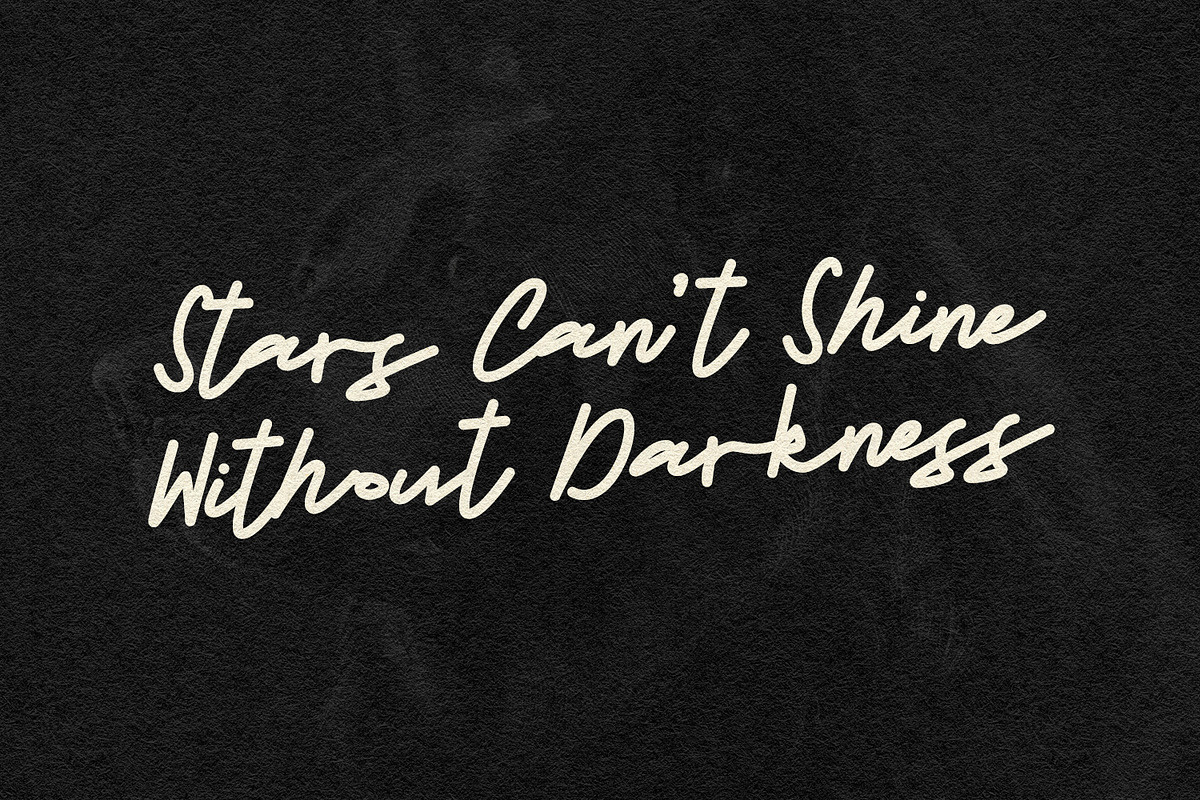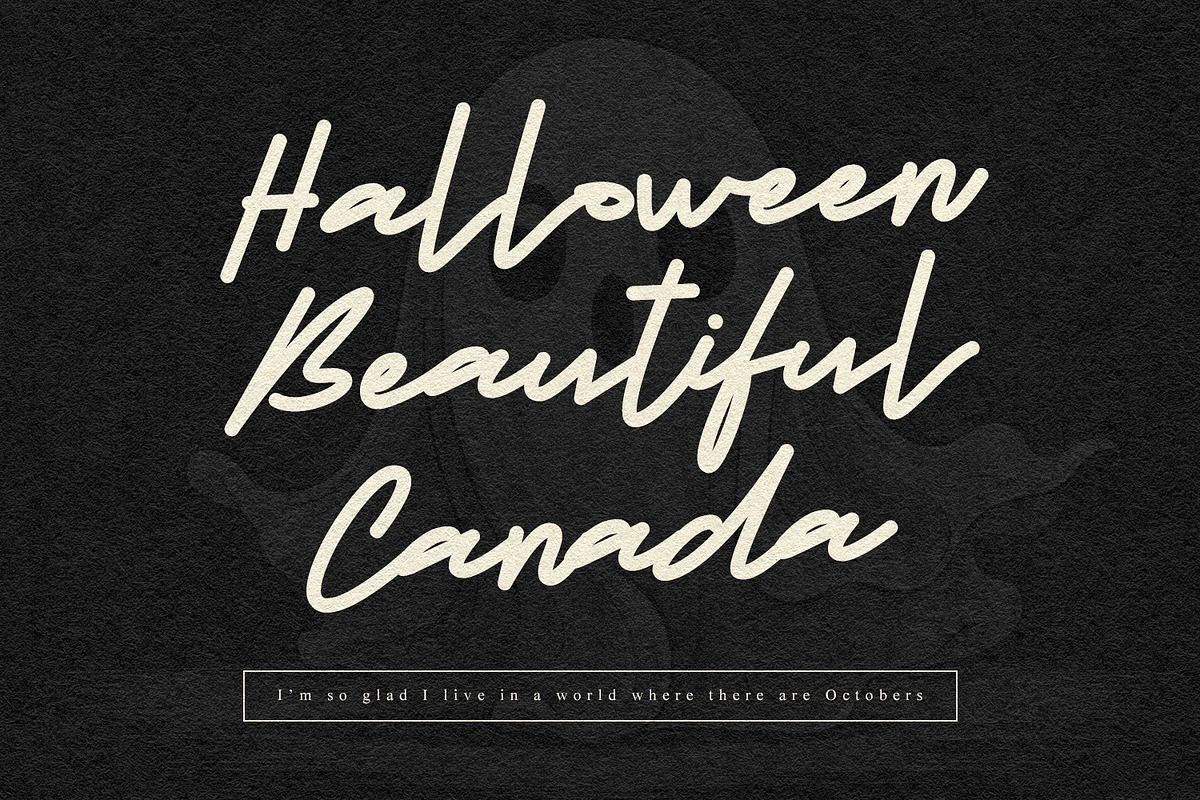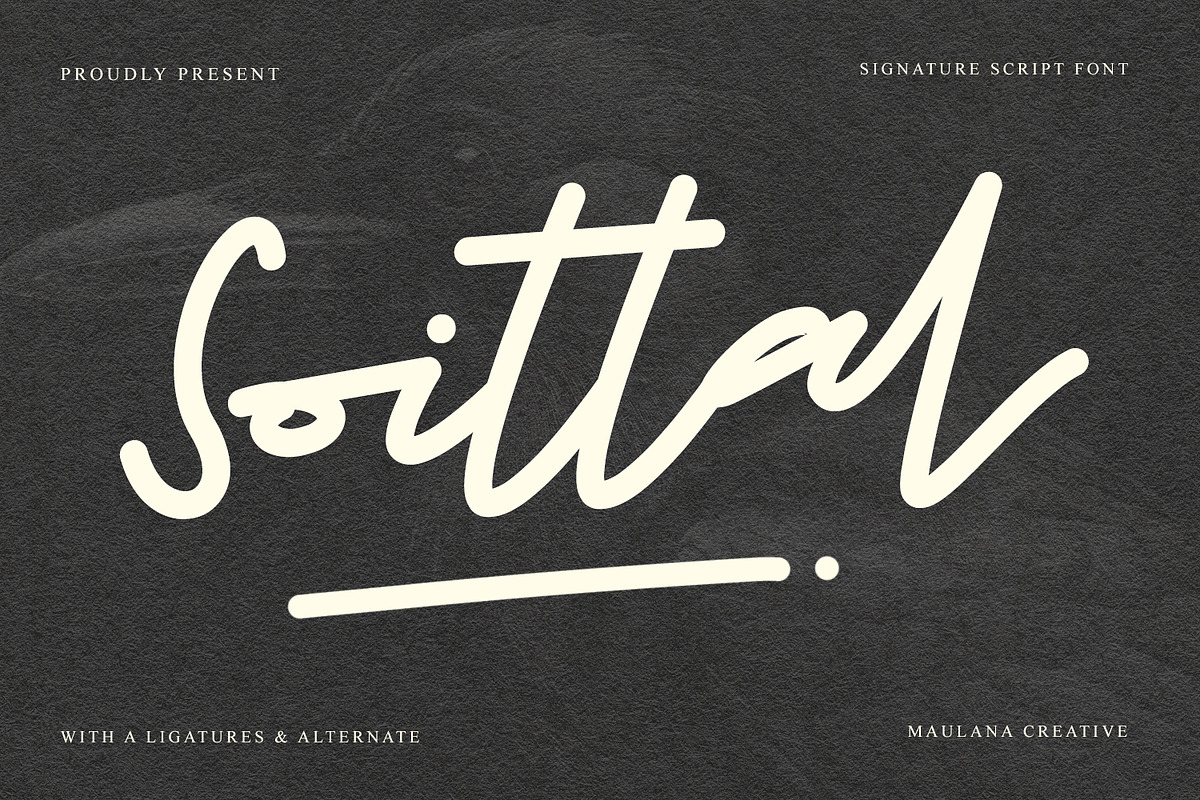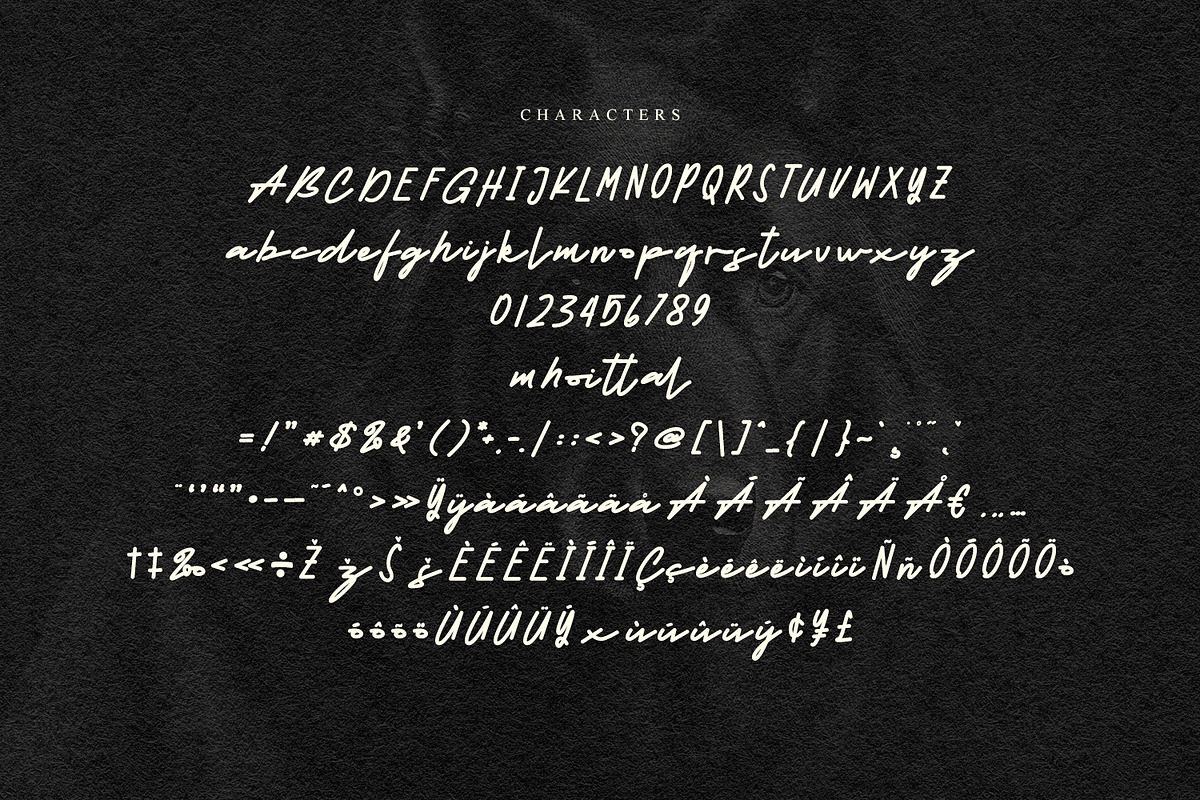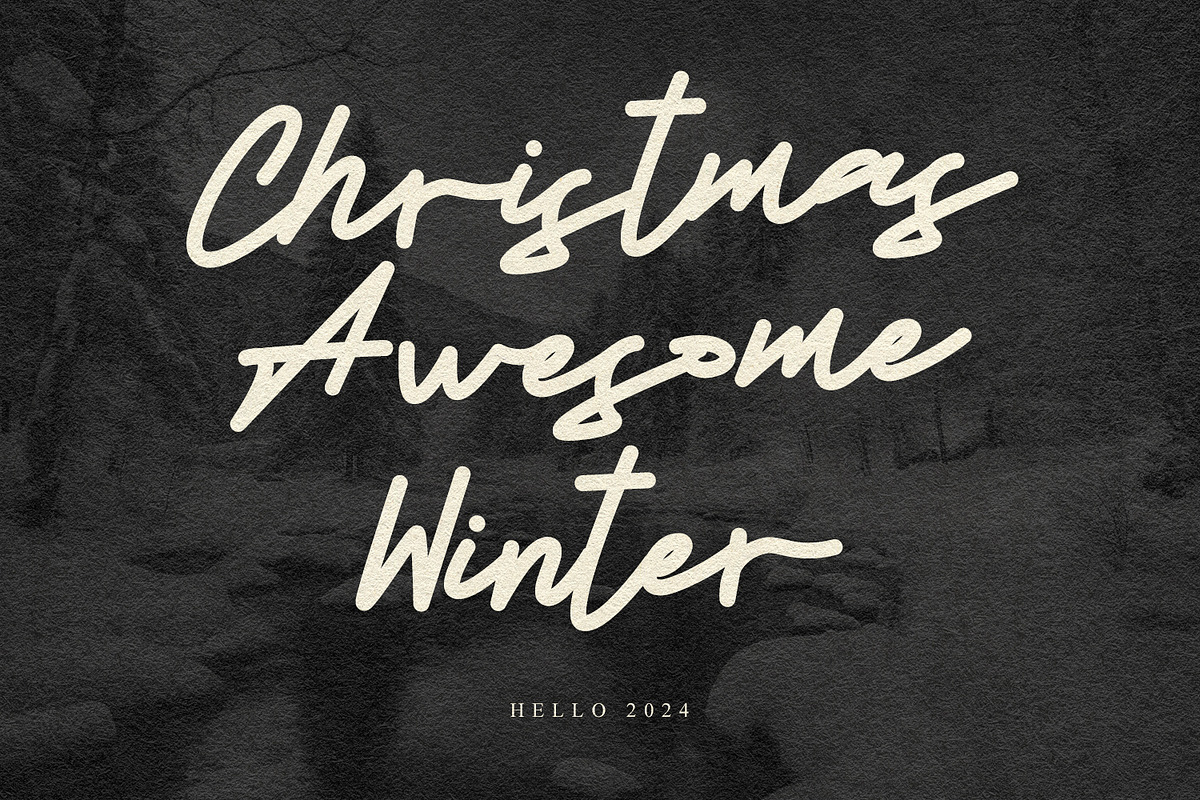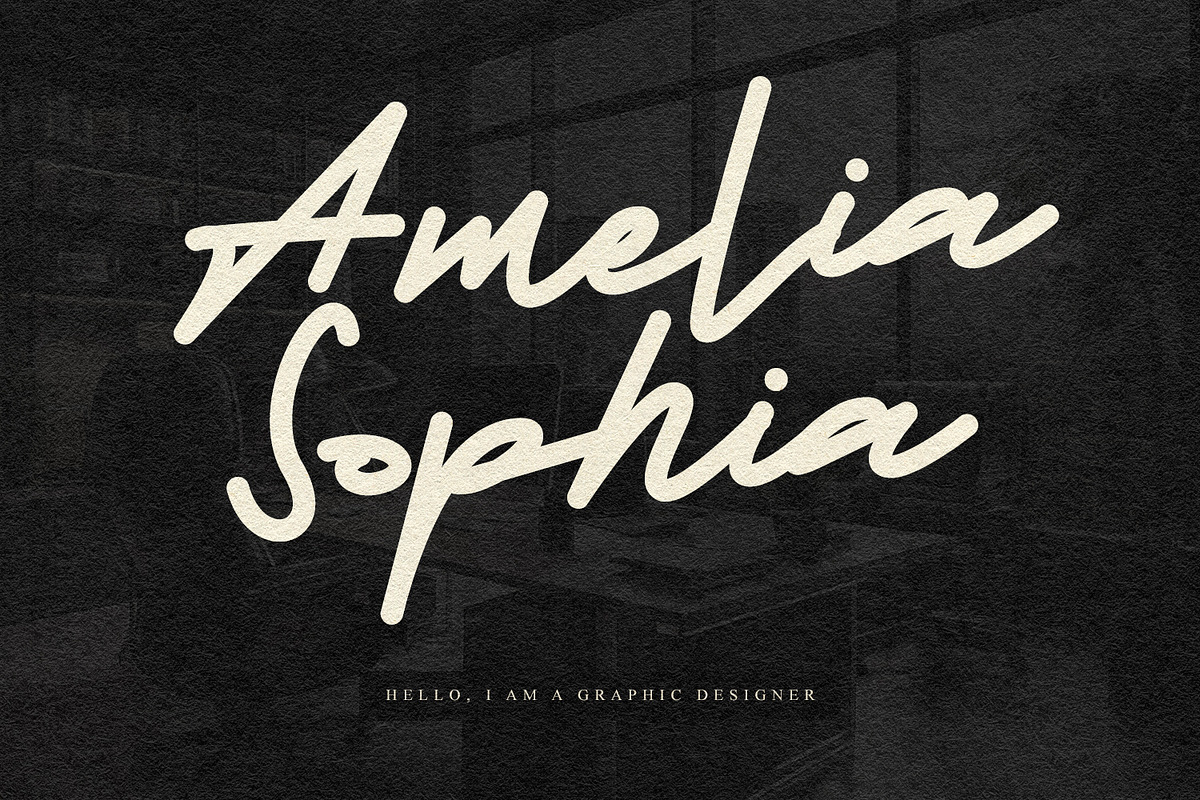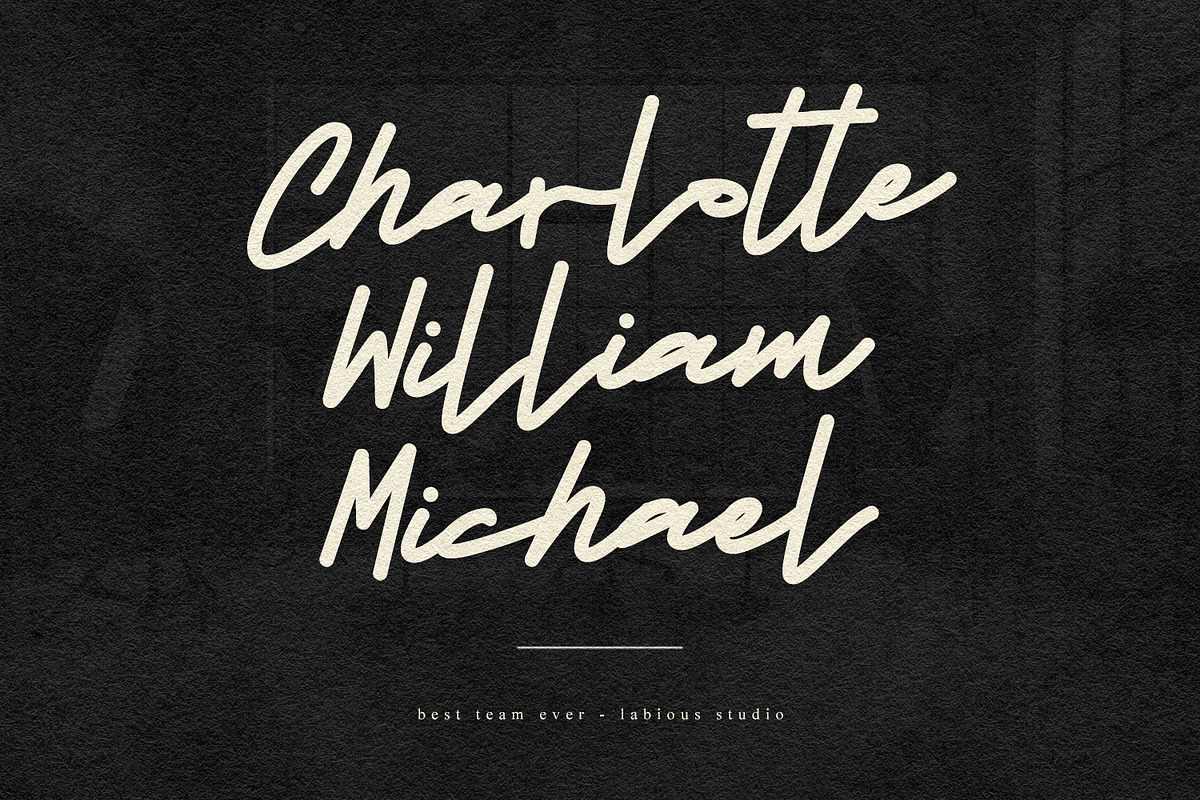
Soittal Signature Script Font
Give your designs an authentic signature handcrafted feel. “Soittal Signature Script Font” is perfectly suited to signature, stationery, logo, typography quotes, website header, branding and more.